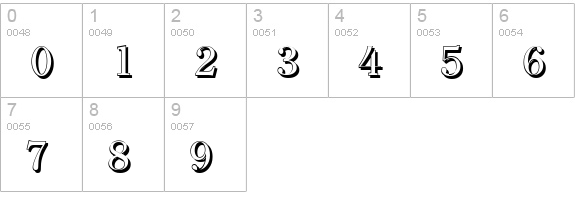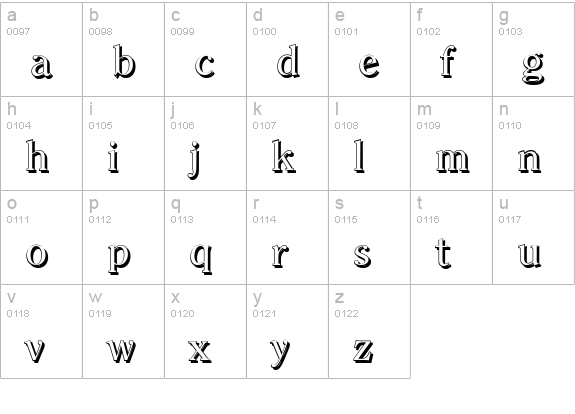
ClearfaceShadow-Regular Font Details
ClearfaceShadow-Regular is the standard, neutral variant in the ClearfaceShadow typeface family \xE2\x80\x94 well suited to general body text, paragraphs, and standard typographic work.
ClearfaceShadow-Regular is a classic and elegant font that exudes sophistication and style. With its clean lines and subtle shadow effect, this font is perfect for adding a touch of refinement to any design project. Whether you're creating invitations, logos, or marketing materials, ClearfaceShadow-Regular is sure to make a lasting impression. The best part? ClearfaceShadow-Regular is available for free download at FontsMarket.com. So go ahead and elevate your designs with this timeless font that is both versatile and visually striking. Whether you're a seasoned designer or just starting out, ClearfaceShadow-Regular is a must-have addition to your font collection. Download it today and see the difference it can make in your projects!